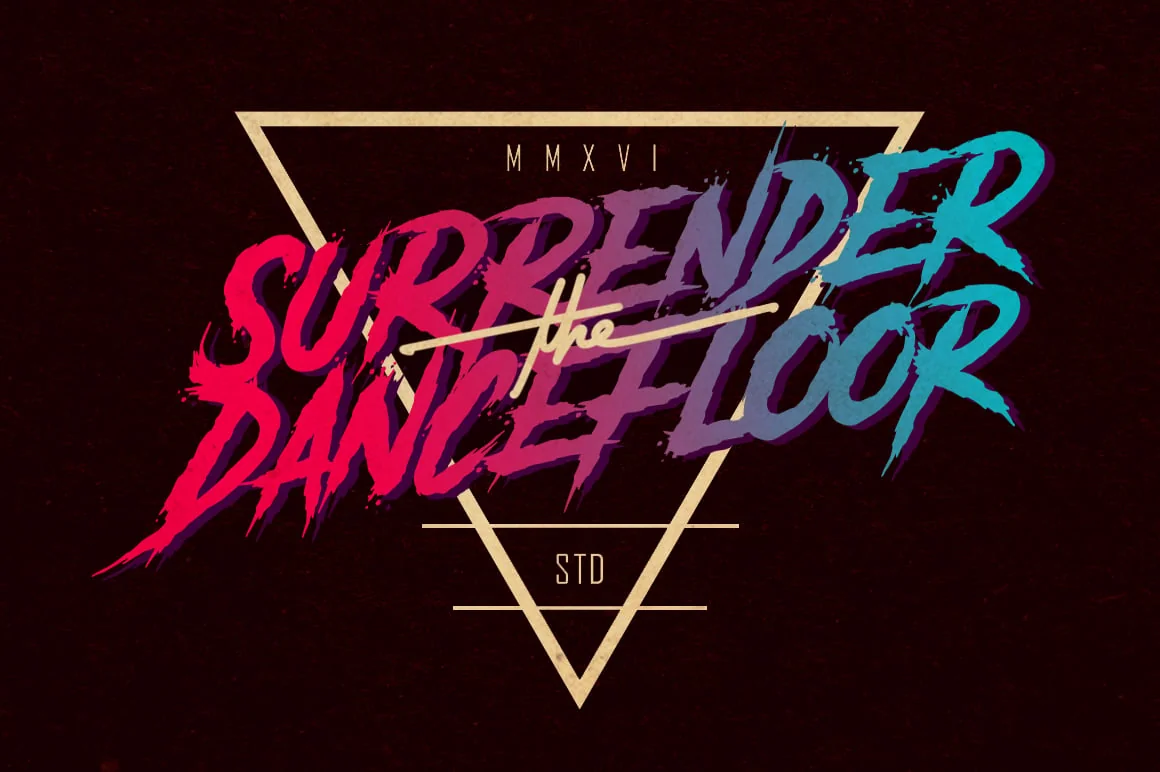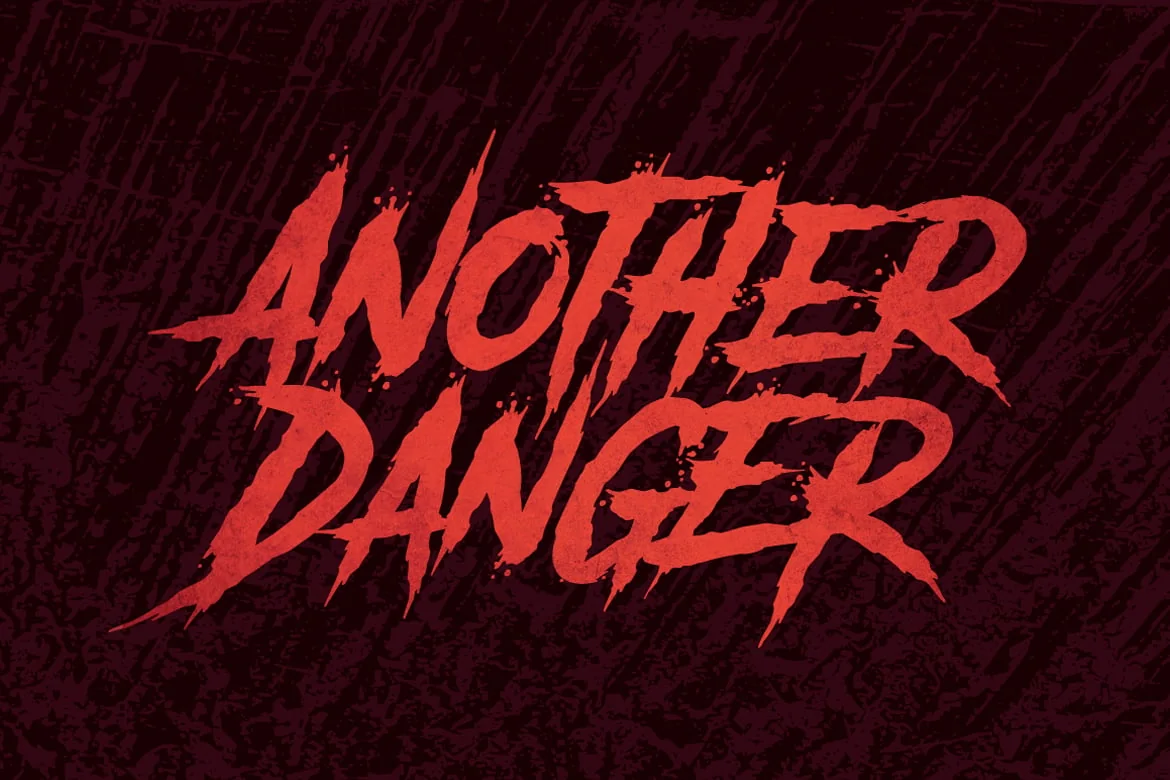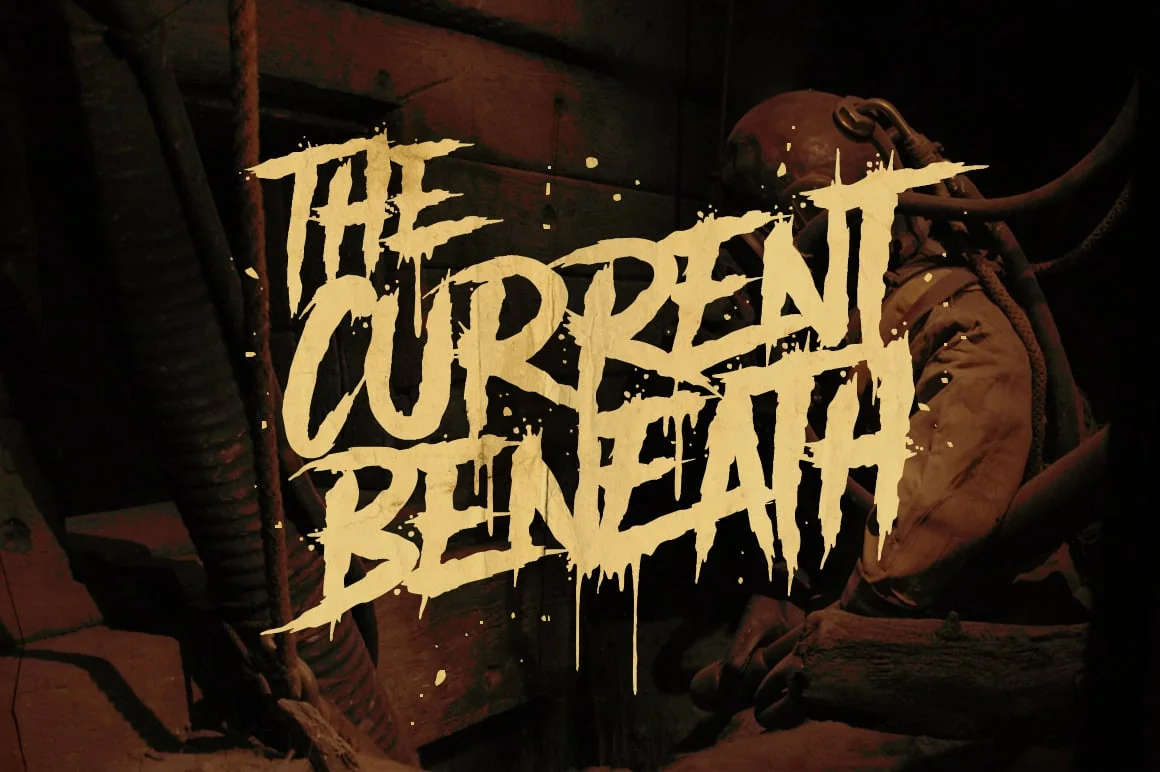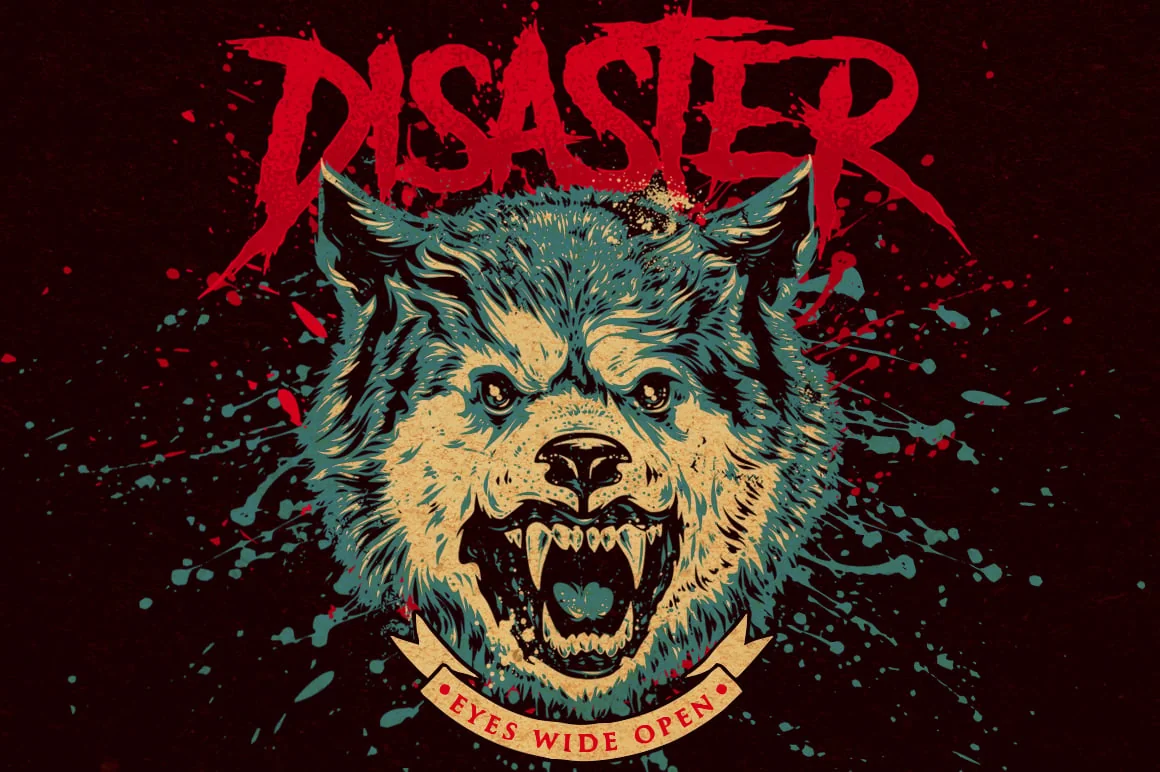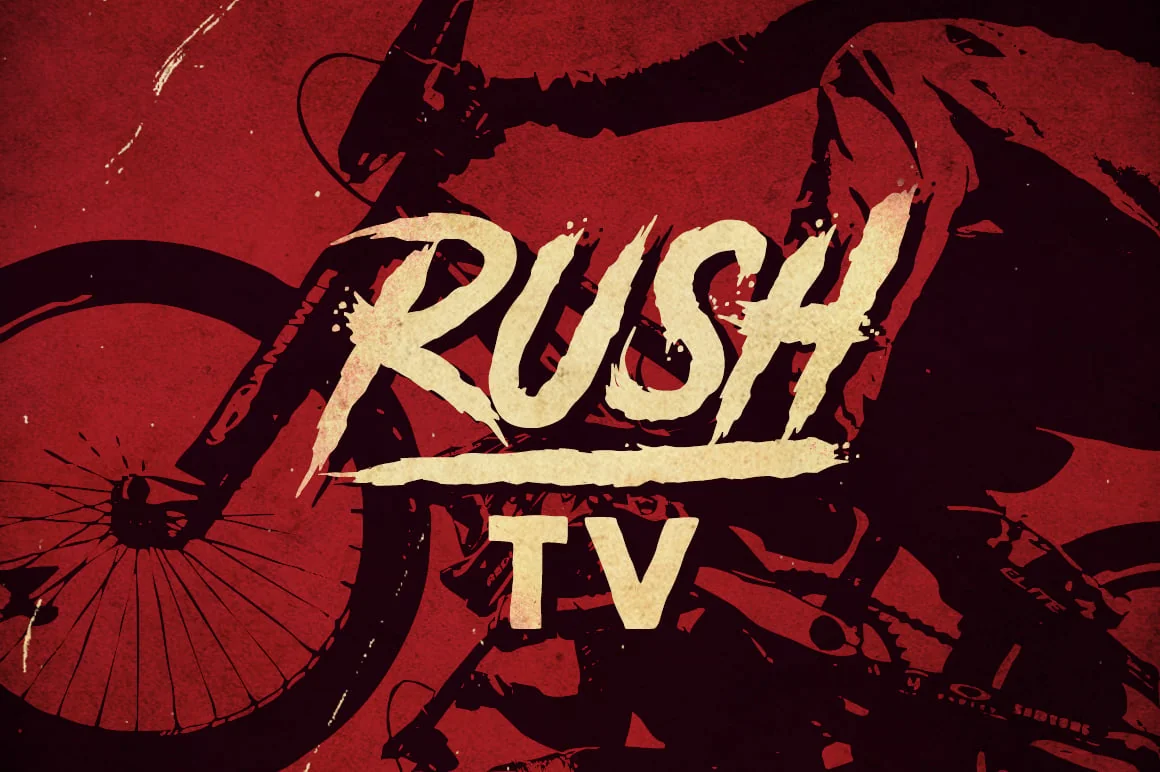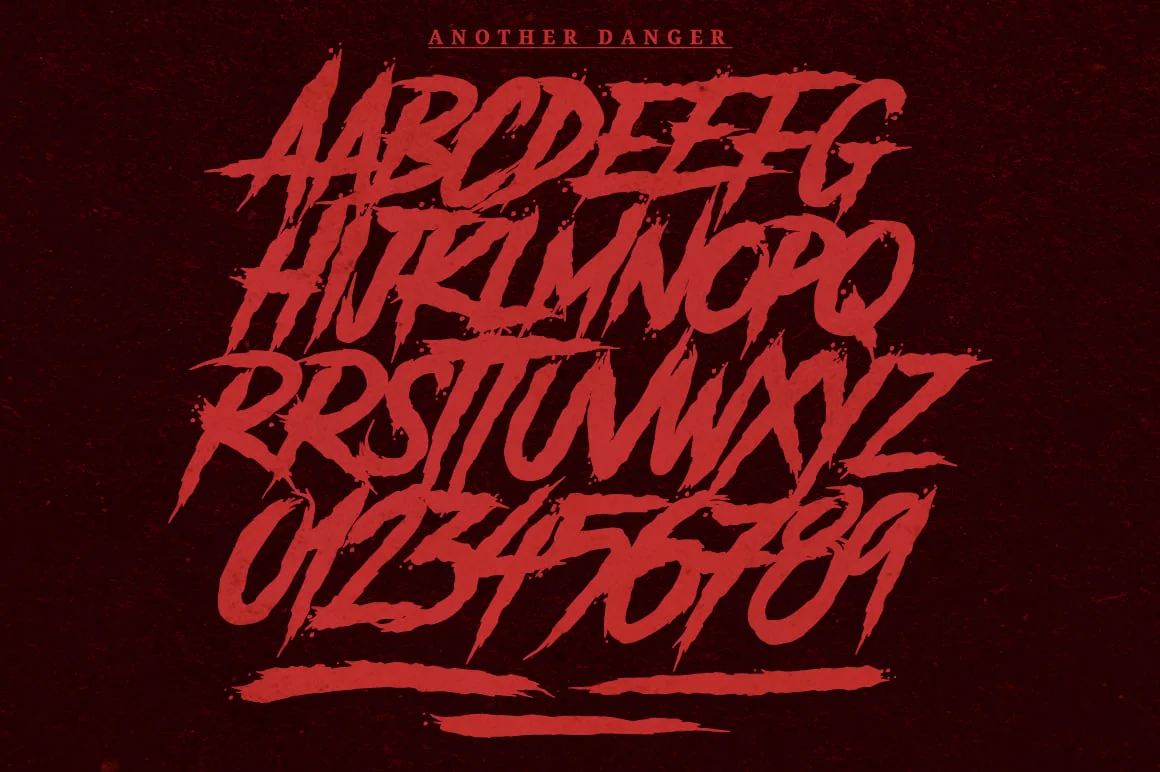
Another Danger | Horror Font
The kind of typeface that proves its usefulness from time to time. With unruly inks delivered to every glyph produces the enigma to it. Bring in the hardcore vibe, the retro feel, the artworks of chaos. Splatter your creativity with Another Danger!